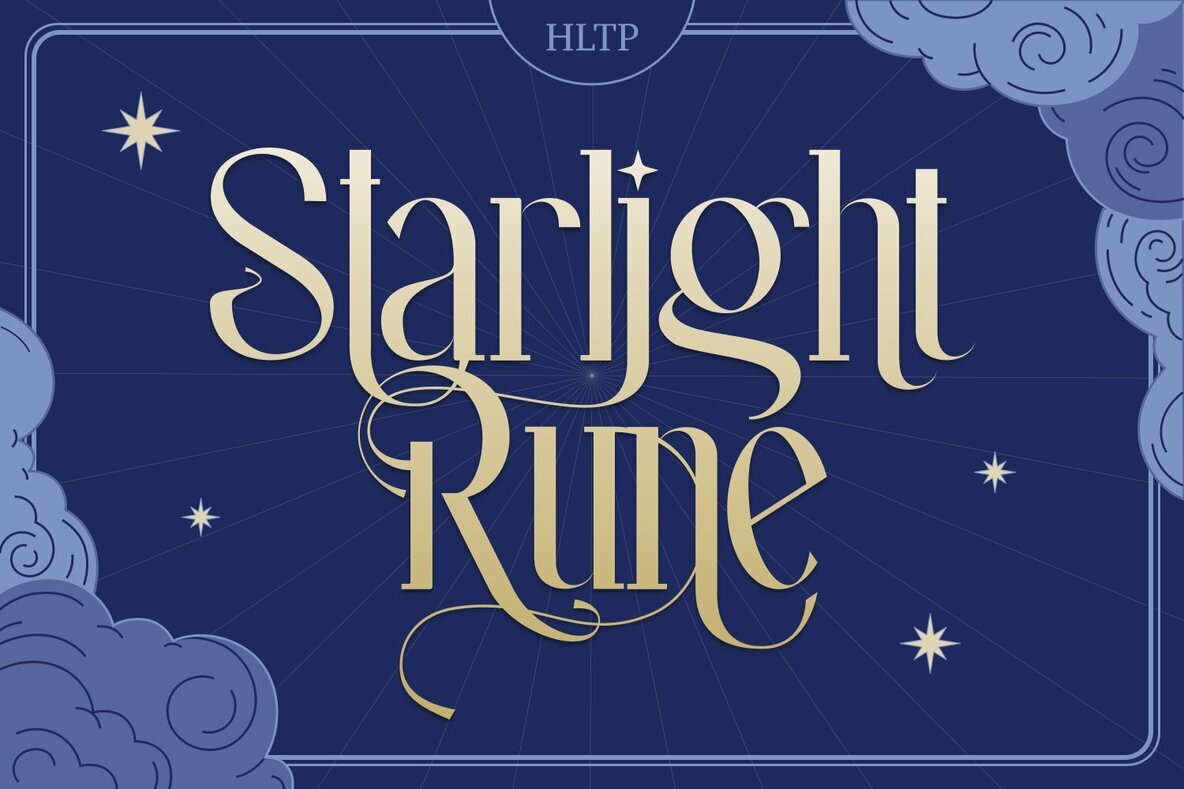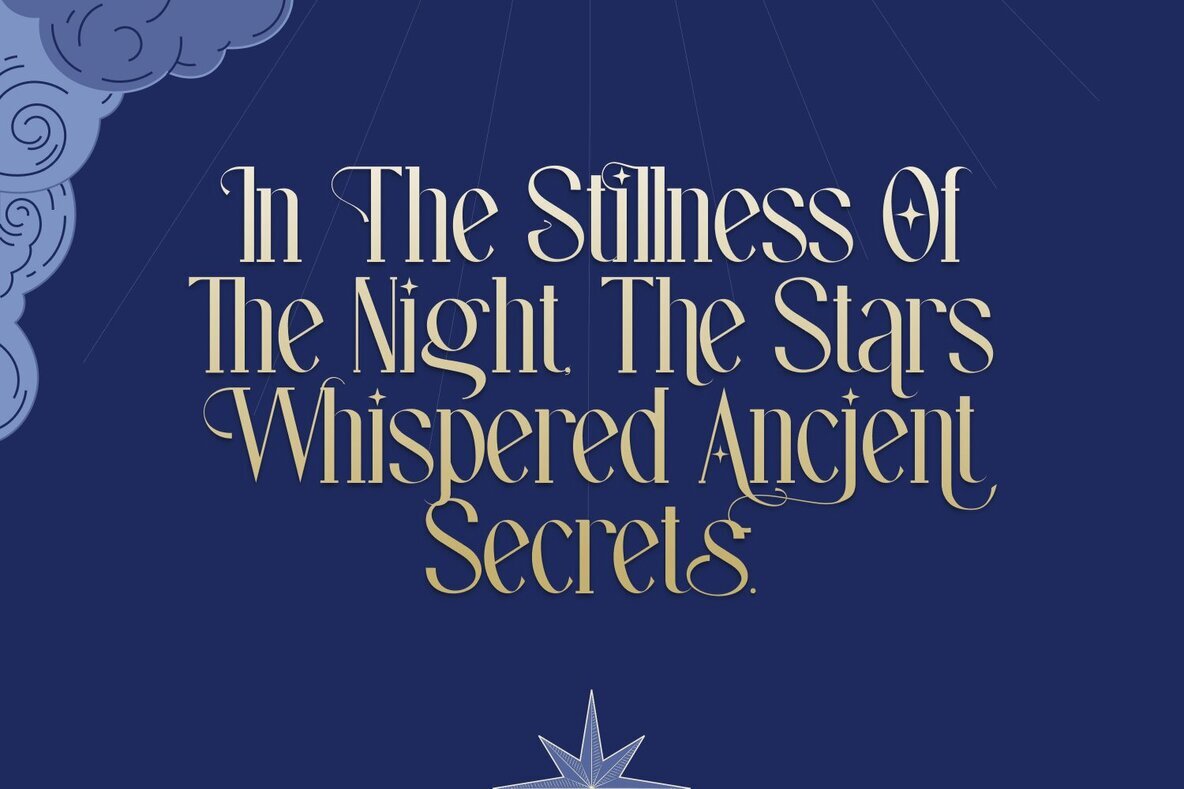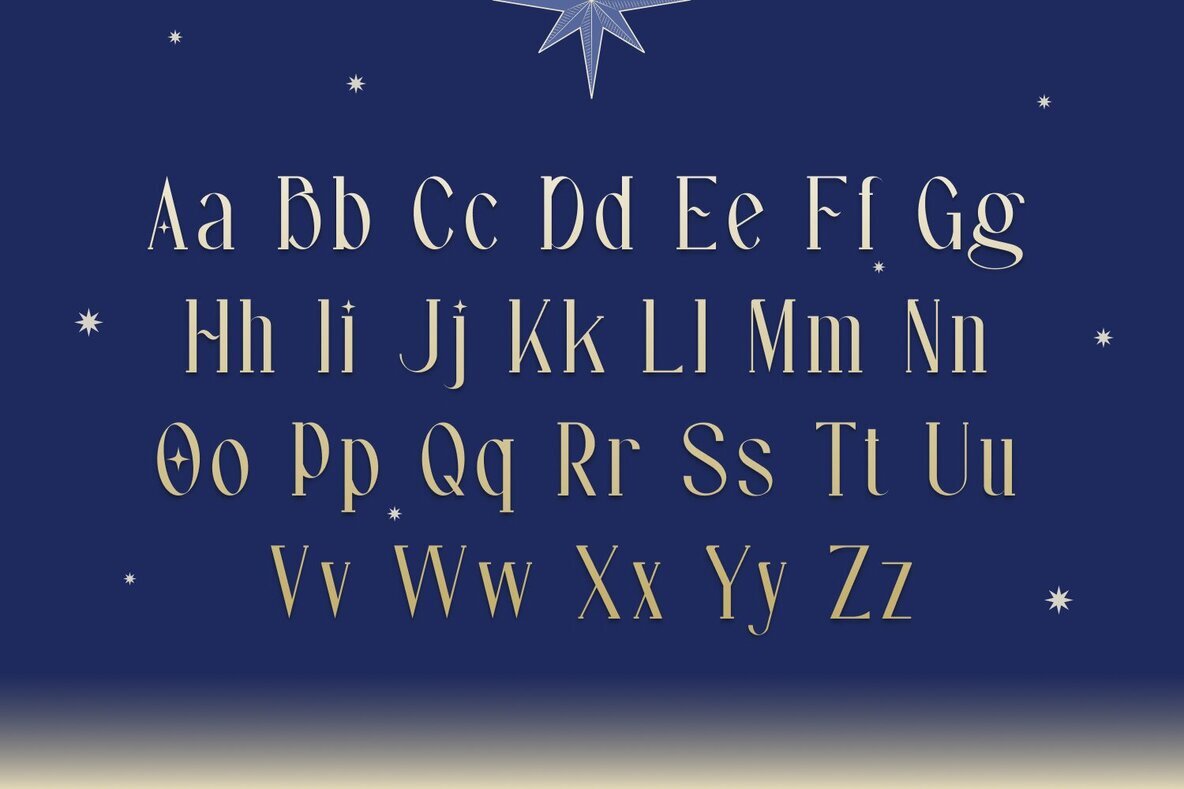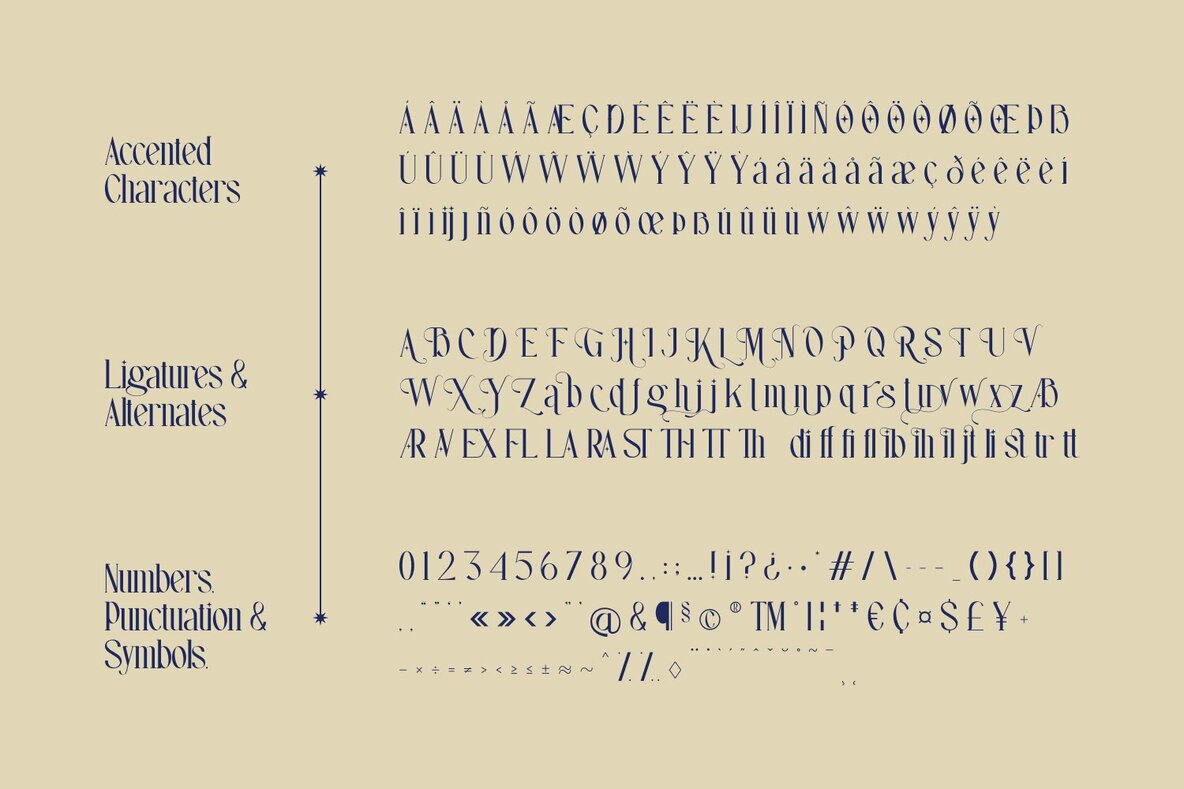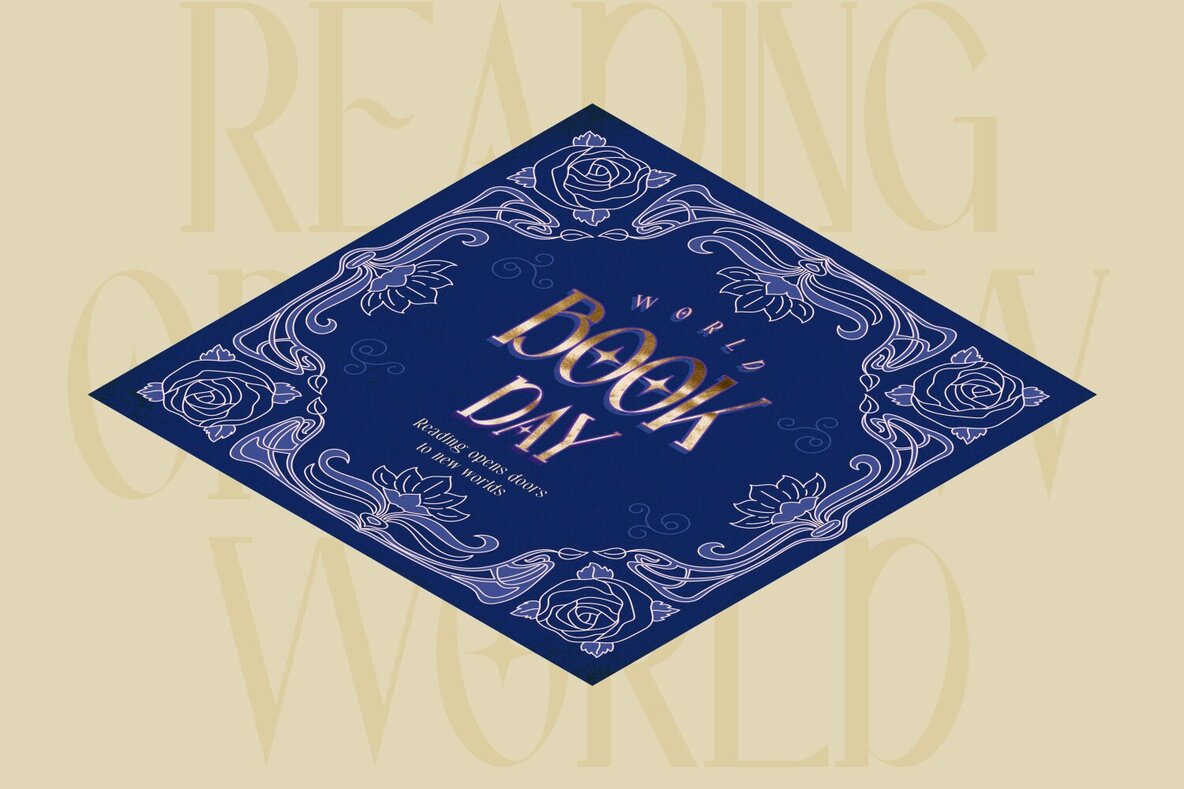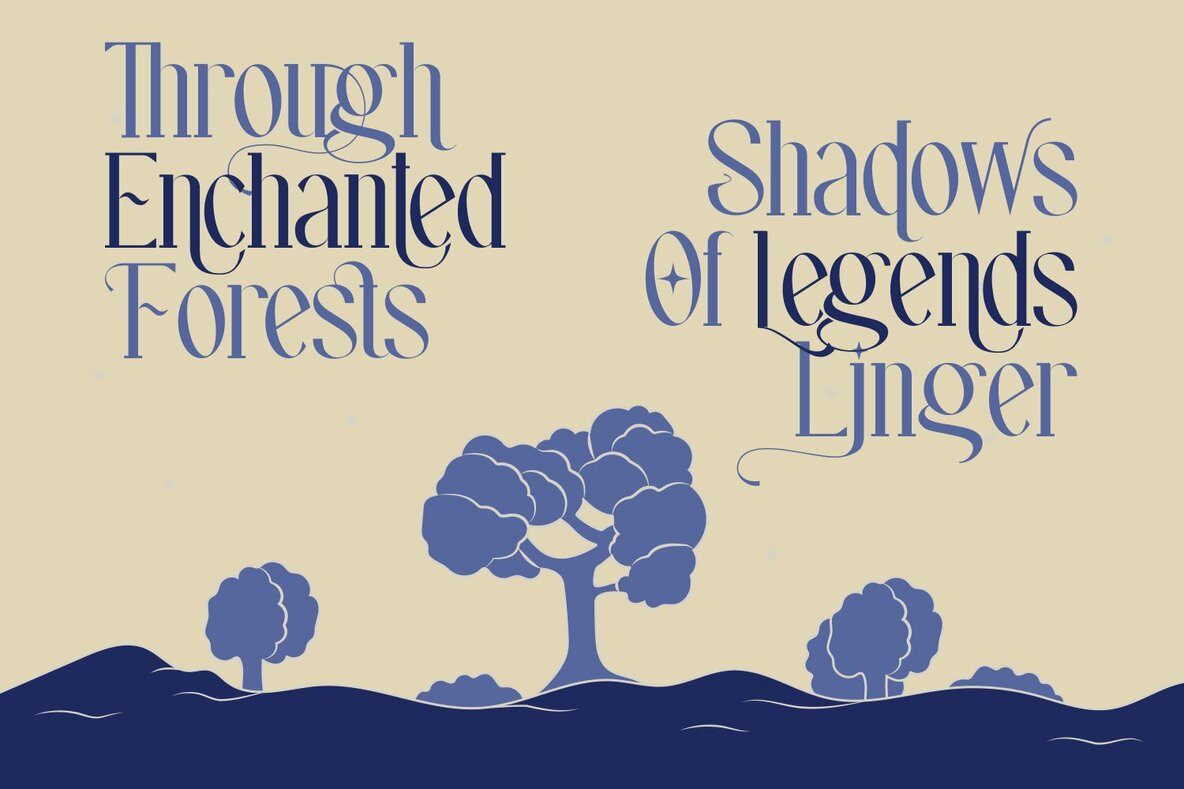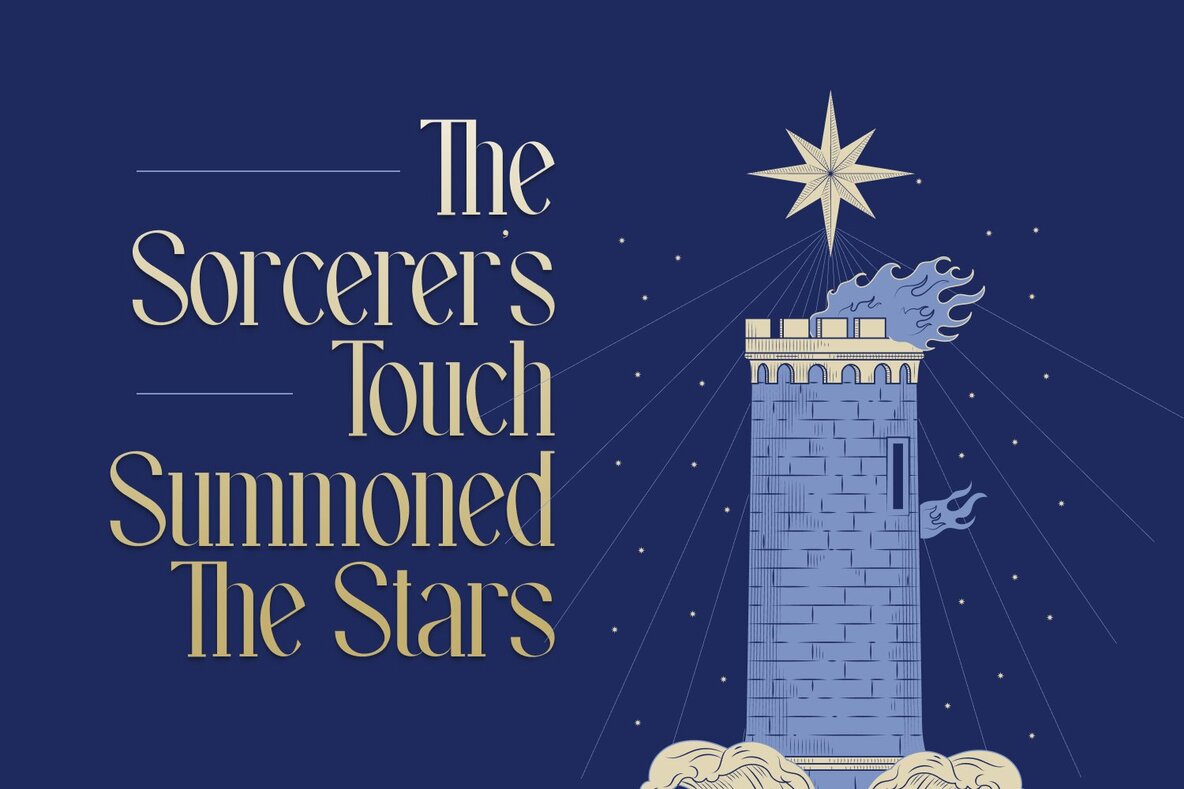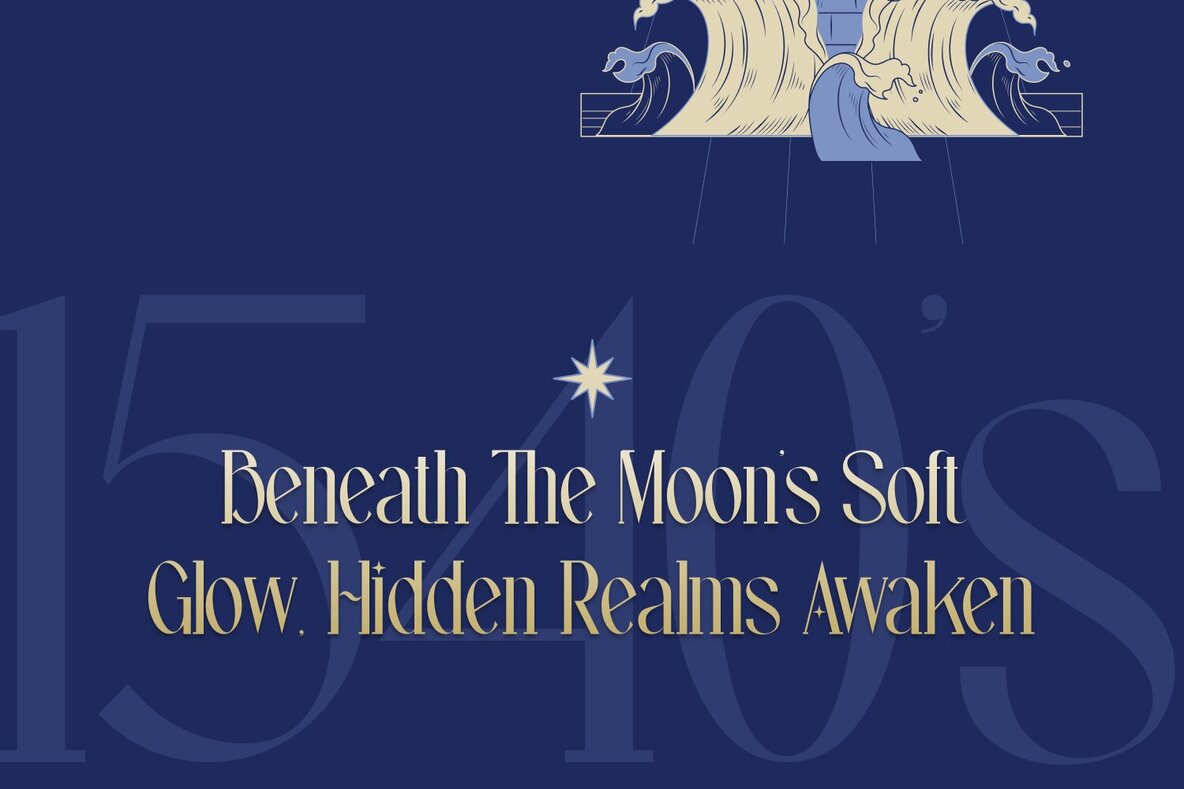
Starlight Rune Font
Starlight Rune
Step into a realm of enchantment with the Starlight Rune display typeface. Inspired by the magical essence of fantasy, this mesmerizing font offers elegant curves and intricate details that capture the imagination. Perfect for crafting invitations, posters, or fantasy book covers, Starlight Rune transports your audience to a mystical world of wonder. Infuse your designs with magic, drawing admirers and captivating minds.Enchantment Awaits with Starlight Rune